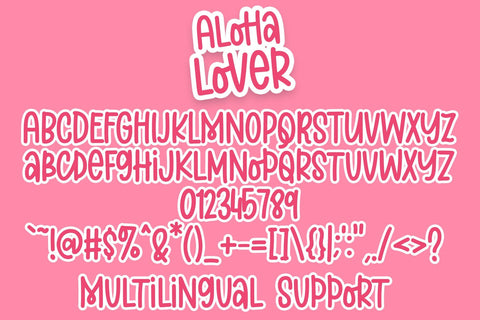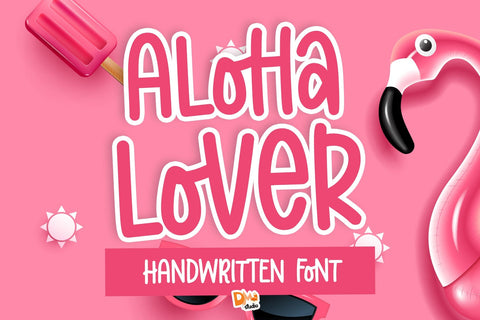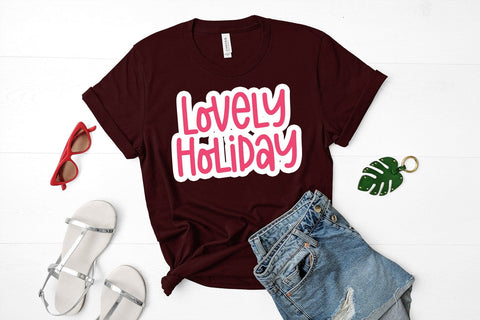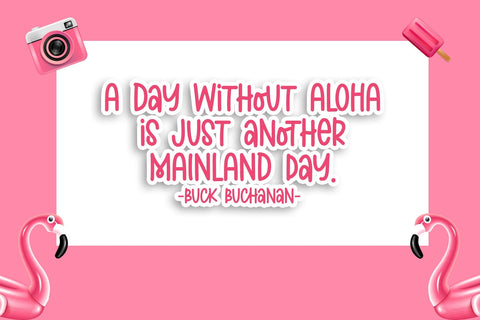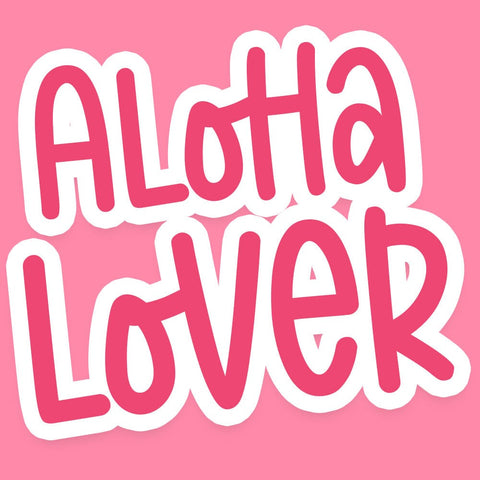
Aloha Lover Font
Introducing the Aloha Lover Font, a delightful and versatile typeface that radiates the warmth and laid-back vibes of the tropics. This font is a perfect blend of casual elegance and exotic charm, making it ideal for a wide range of design projects, from invitations and branding to social media graphics and more.
- Tropical Elegance: Aloha Lover Font embodies the spirit of the islands with its breezy and elegant design. It's inspired by the relaxed atmosphere of tropical paradises, making it perfect for projects that require a touch of exotic charm.
- Invitations and Cards: Create stunning invitations and cards for beach weddings, summer parties, or any event that calls for a touch of tropical flair.
- Branding and Logo Design: Infuse your branding with a relaxed and stylish aesthetic. Aloha Lover Font is perfect for logos, packaging, and promotional materials.
- Social Media Graphics: Elevate your social media presence with eye-catching posts and stories that capture the essence of a tropical escape.
- Apparel and Merchandise: Design trendy apparel and merchandise with the Aloha Lover Font, bringing a sense of casual sophistication to your products.
Transform your designs into a tropical paradise with the Aloha Lover Font. Embrace the casual elegance and exotic charm of this typeface to create projects that transport your audience to sun-soaked beaches and the laid-back spirit of the islands.